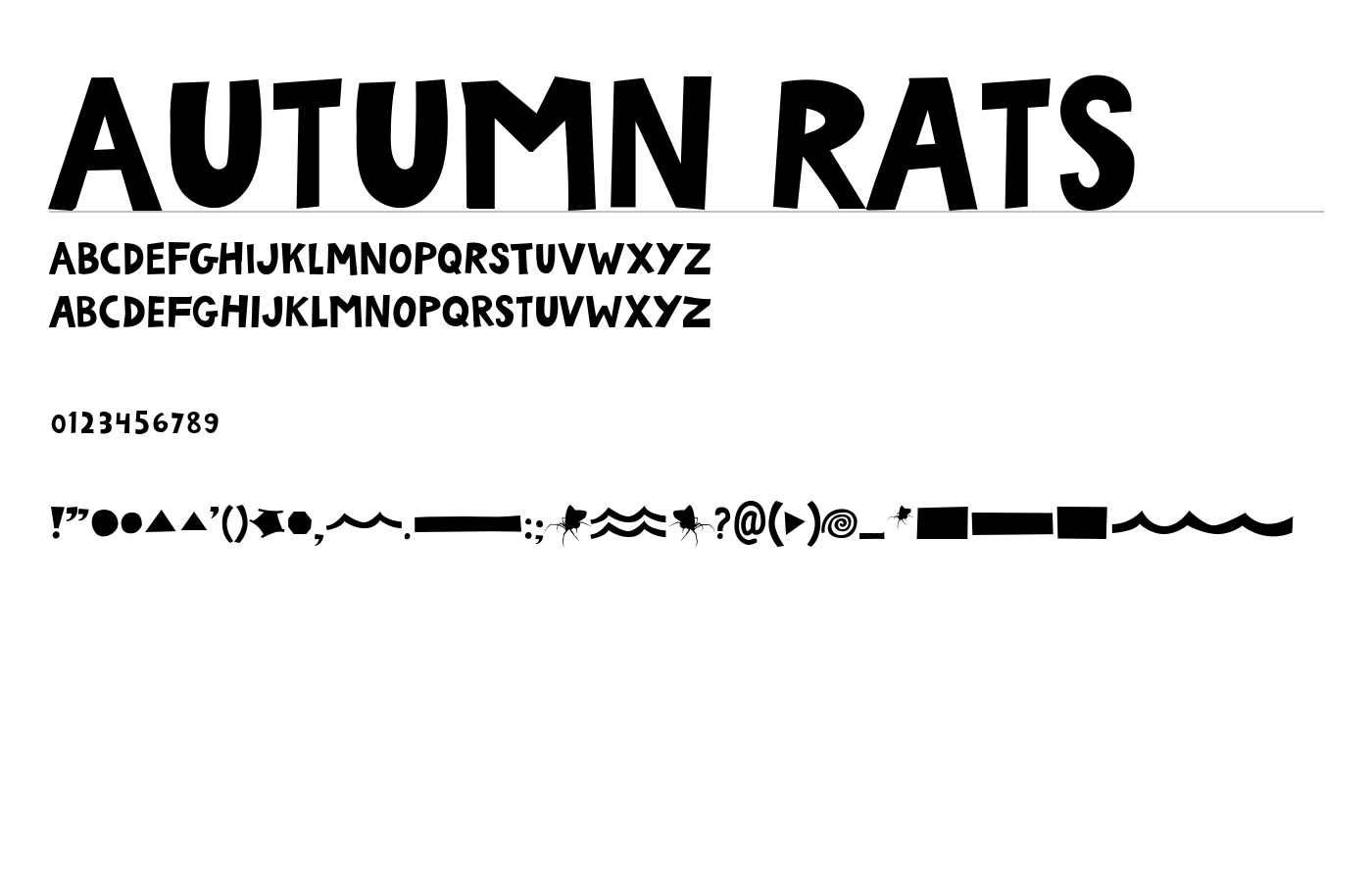
Autumn Rats is a playful and bold sans serif font with an uneven, hand-drawn style that gives it a quirky, casual feel. The letterforms feature irregular shapes and varied stroke widths, making it perfect for fun, informal designs aimed at a youthful or creative audience. It works especially well for headlines, posters, and branding where a lively, approachable personality is desired.
Autumn Rats Font
About Autumn Rats Font